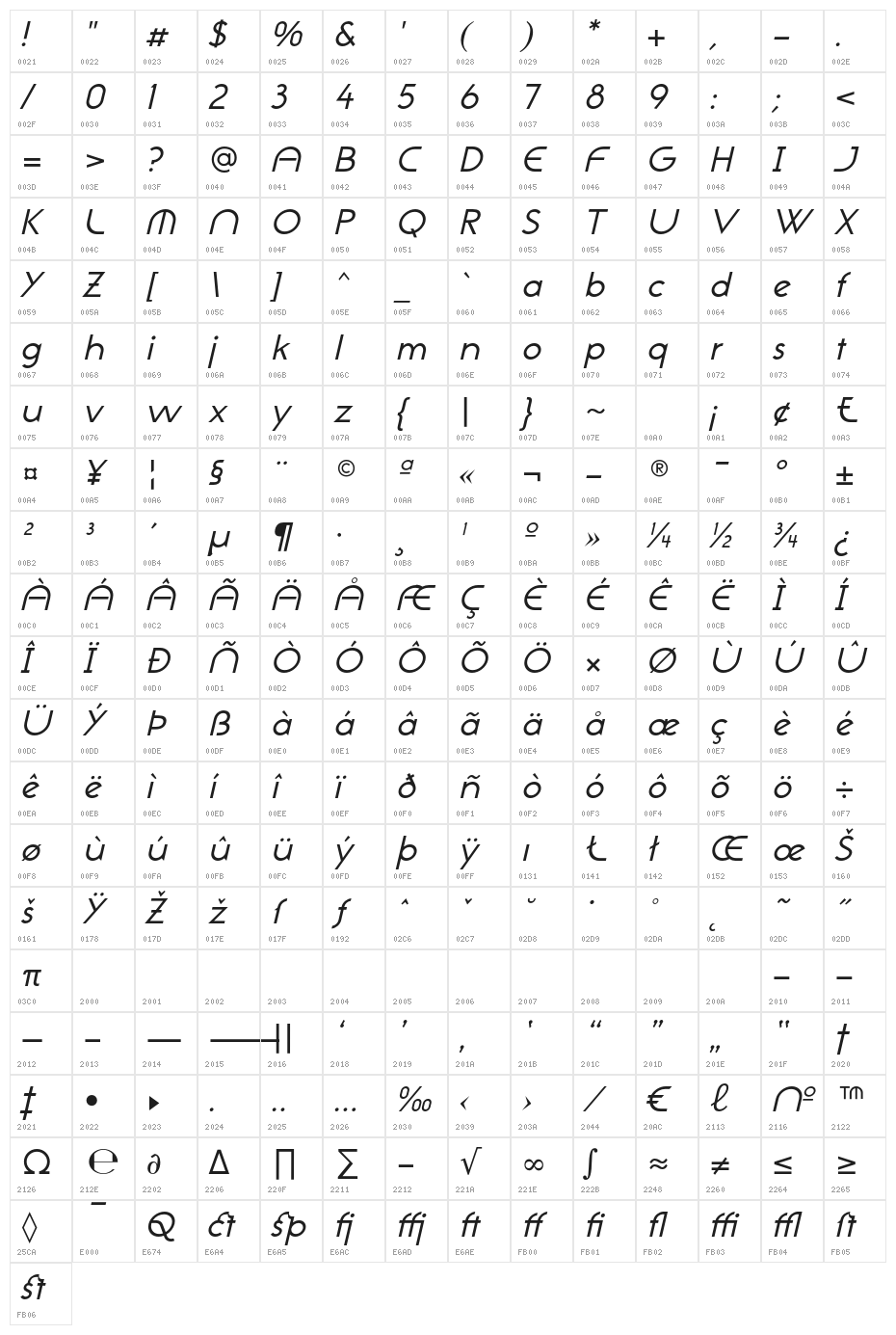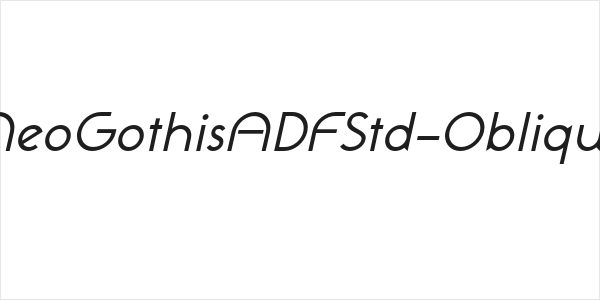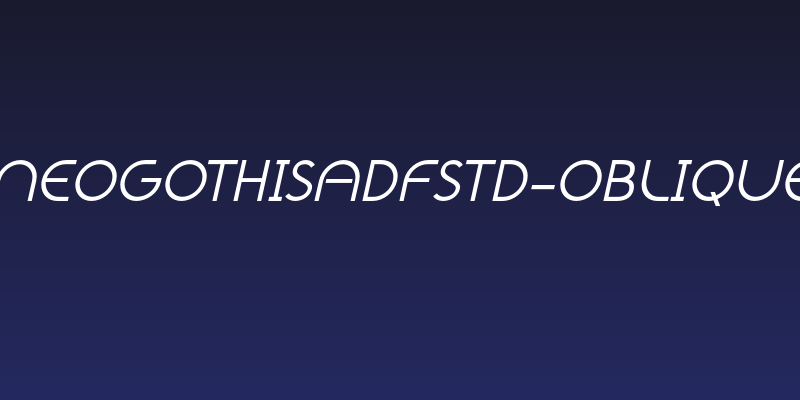
NeoGothisADFStd-Oblique Font
NeoGothisADFStd-Oblique Description
This font exhibits a sleek and modern design with an oblique orientation, giving it a dynamic and forward-leaning appearance. The characters are crafted with smooth curves and sharp edges, providing a sense of elegance and sophistication. The uppercase letters are slightly taller than the lowercase, maintaining a consistent width that ensures readability. The numerals are distinct and clear, matching the overall style of the alphabet. Special characters are well-integrated, maintaining the font's cohesive look. This font is suitable for projects that require a contemporary and stylish touch.
| Proposed Projects | Ideal for branding, advertising, and editorial design projects that require a modern and stylish appearance. |